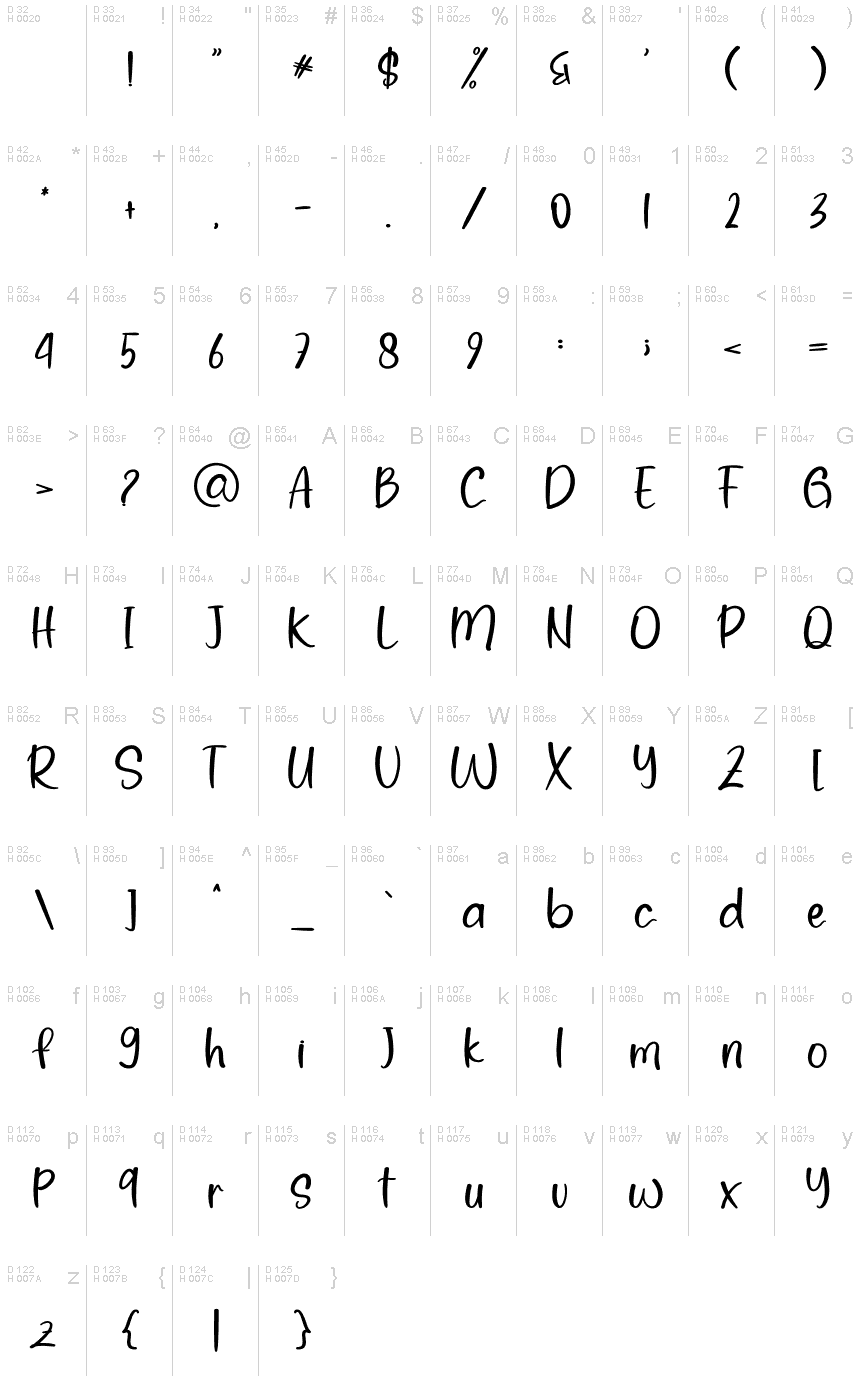
Matcha
Matcha, designed by Etik Fatimah, is a semi-light handwritten font that exudes charm and personality. Its fluid, casual strokes evoke the warmth of personal touch, making it an excellent choice for designs that require an intimate and bespoke feel. The font carries a distinct aesthetic appeal with its subtle irregularities and humanistic qualities, reminiscent of elegant penmanship.
This font's style is particularly well-suited for creative projects that demand an organic and approachable look. From invitations to branding materials, Matcha can infuse a project with its distinctive character without overwhelming the design. Its legibility and unique flair make it versatile enough for both digital media and print, ensuring your message is not only seen but felt.